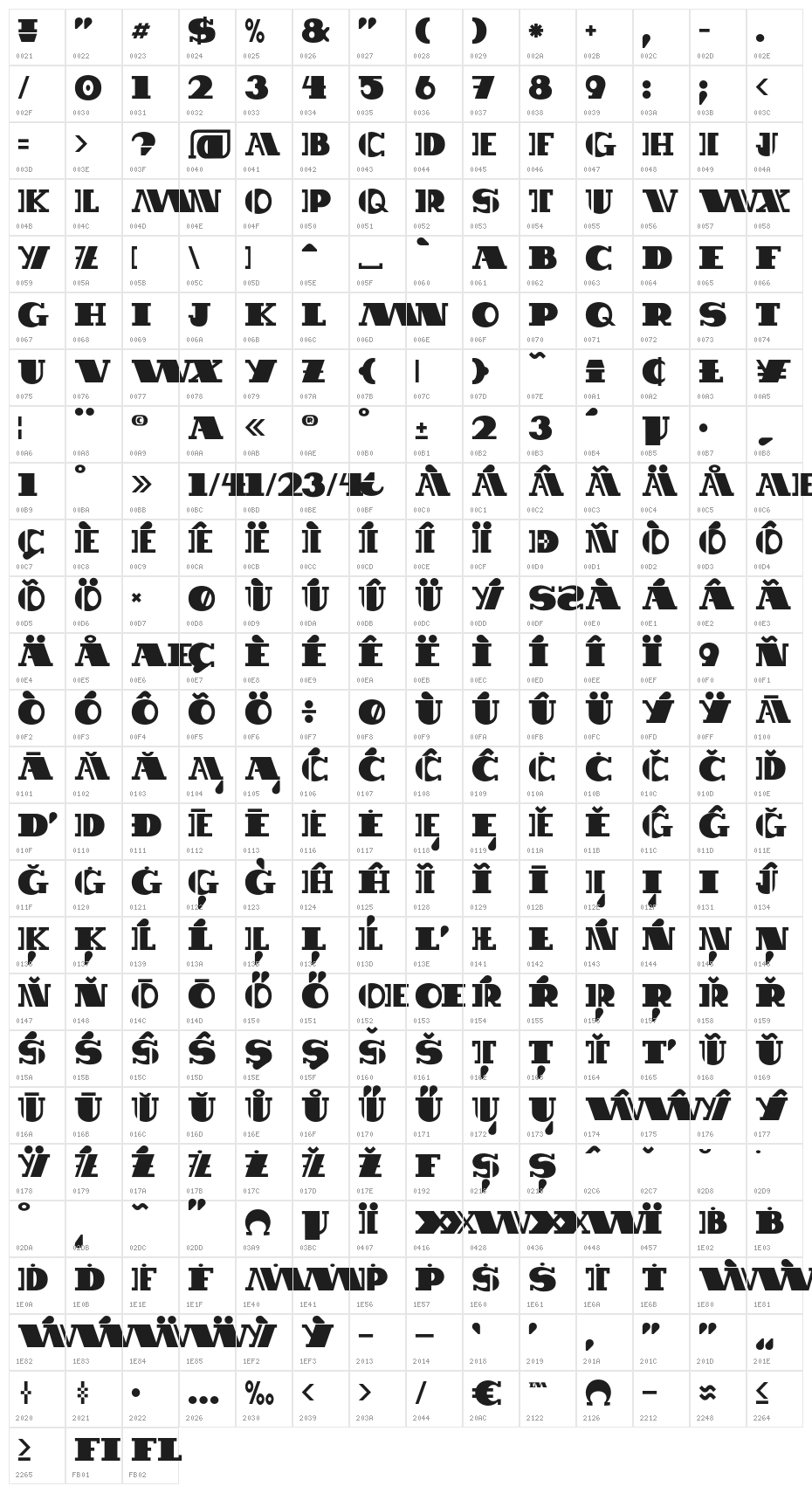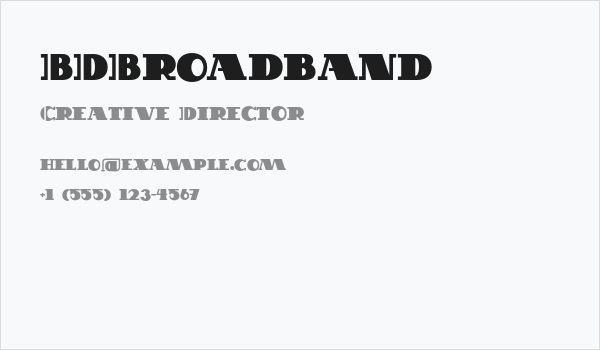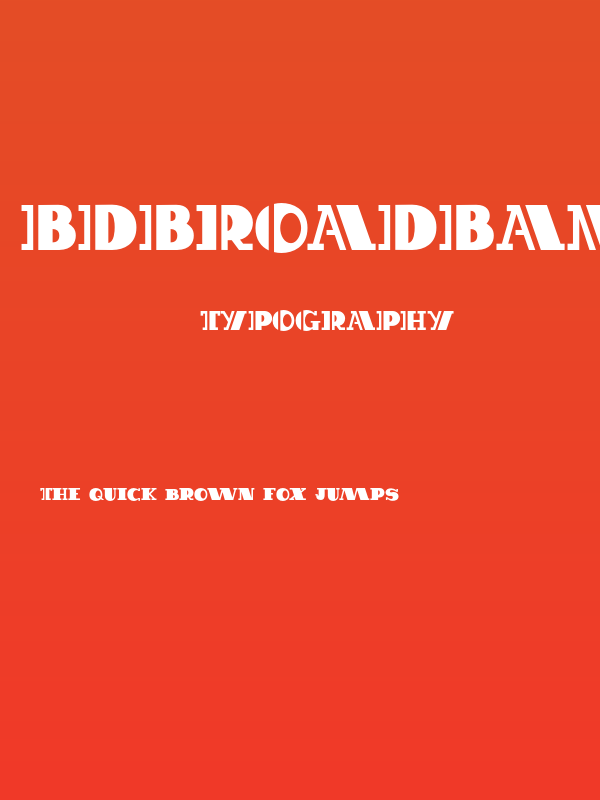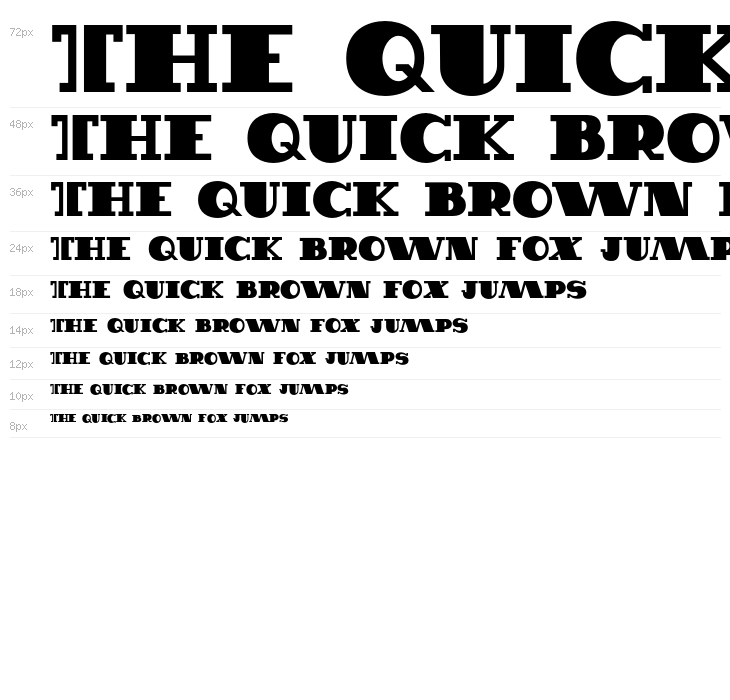
BDBroadband Font
BDBroadband Description
This font features a bold, geometric design with strong, angular shapes and high contrast between thick and thin strokes. The characters are wide and have a distinctive, modern appearance, making them stand out prominently. The uppercase letters are particularly striking, with a unique cut-out style that adds a dynamic and edgy feel. The numerals and special characters maintain this bold aesthetic, ensuring consistency across all glyphs. This font is well-suited for attention-grabbing headlines and display purposes where a strong visual impact is desired.